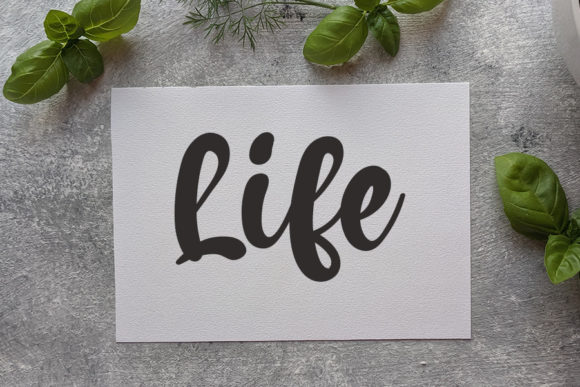
Bold Lining Font
db-ku.com - Script & Handwritten -- Bold Lining is a friendly handwritten font, carefully designed to become a true favorite. It maintains its classy calligraphic influences while feeling contemporary and fresh.